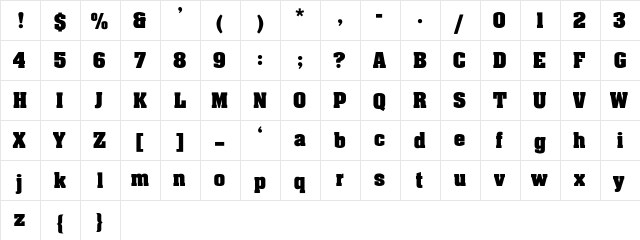
Donwell Regular Font Preview
Donwell Regular
Donwell Regular Font Details
Design Context for Donwell Typeface
Donwell is a composed and adaptable typeface that performs quietly and consistently across a wide range of design contexts.